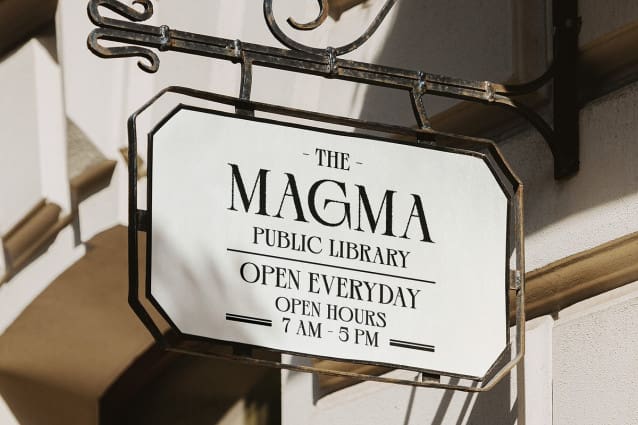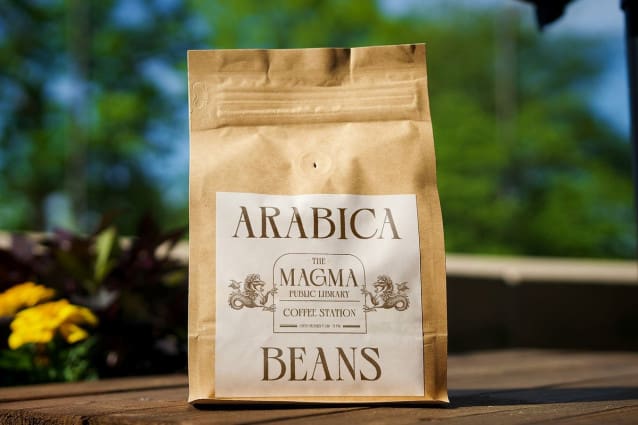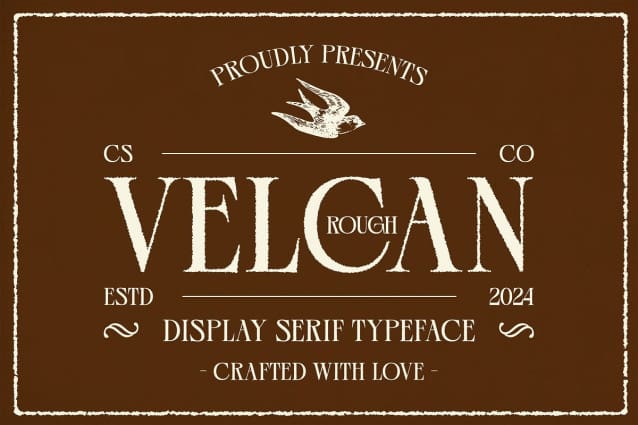
Velcan Rough Font
Velcan Rough Font is a modern serif font that combines the grace of classic typography with a contemporary twist. Its clean lines and structured forms convey a sense of sophistication and professionalism, making it ideal for formal and polished designs.
Artistic Rough Effect for Unique Texture The rough effect introduces a coarse texture that adds dimension and depth to the font. This artistic touch provides a handmade, imperfect quality, enhancing Velcan Rough’s unique and bold character while maintaining its elegant appearance.
Balancing Sophistication with Individuality This font masterfully blends traditional elegance with a casual, artistic edge. The result is a typeface that radiates sophistication yet stands out with a distinctive and engaging flair, perfect for projects that need to balance formality with personal style.
Ideal for Branding, Packaging, and Promotional Materials Velcan Rough is well-suited for a variety of design applications, including branding, packaging, and promotional materials. Its sophisticated yet bold character ensures that your designs make a memorable impact while highlighting a refined and distinctive aesthetic.